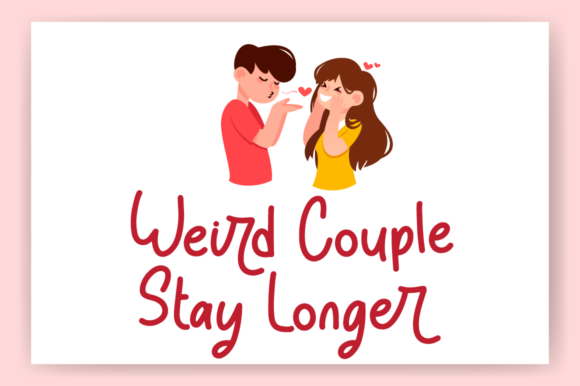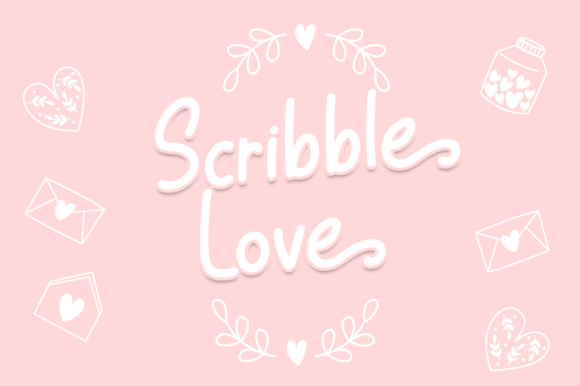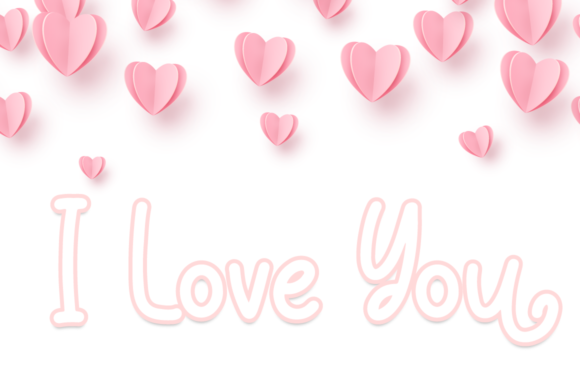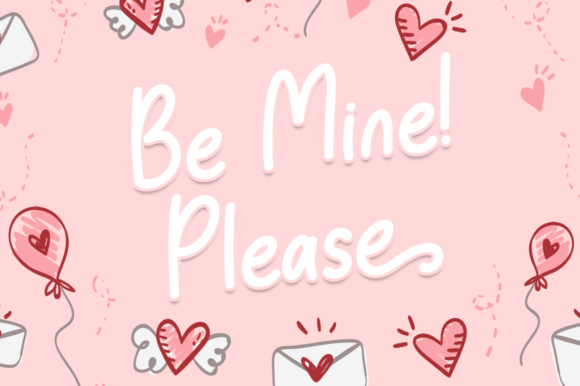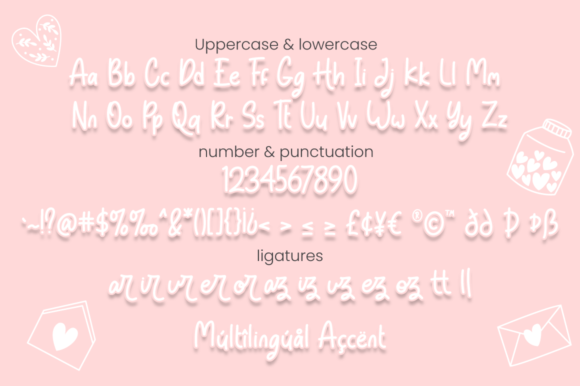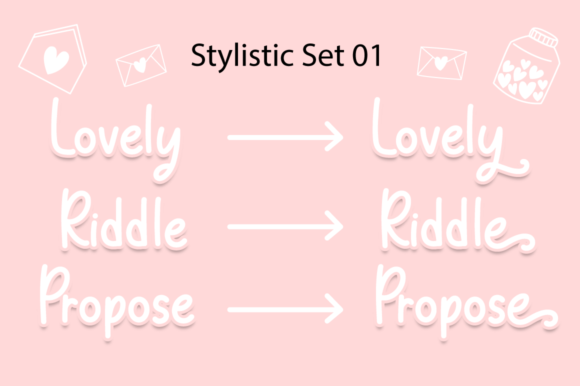
Aberana Font: The Sweet and Delicate Handwritten Font for Romantic Designs
Are you a designer or crafter looking for a font that can add a touch of romance and elegance to your designs? Look no further than the Aberana Font! This sweet and delicate handwritten font is perfect for creating beautiful wedding invitations, cards, and other designs that require a personal and loving touch.
What is Aberana Font?
Aberana is a modern handwritten font that is characterized by its dainty and joyful feel. It’s a font that exudes romance and sophistication, making it ideal for designs that require a touch of elegance. The font is designed to be highly legible and versatile, making it perfect for a wide range of design applications.
Key Features of Aberana Font
- Sweet and delicate: Aberana Font is a sweet and delicate font that is perfect for creating romantic and elegant designs.
- Handwritten feel: The font has a handwritten feel that gives it a personal and loving touch.
- Dainty and joyful: The font is characterized by its dainty and joyful feel, making it perfect for designs that require a touch of whimsy and playfulness.
- Highly legible: The font is designed to be highly legible, making it perfect for designs that require a clear and easy-to-read text.
- Versatile: The font is versatile and can be used for a wide range of design applications, from wedding invitations to cards and other designs.
Why Use Aberana Font?
There are many reasons why you should consider using Aberana Font for your designs. Here are a few:
- Add a touch of romance: Aberana Font is perfect for designs that require a touch of romance and elegance. It’s ideal for wedding invitations, cards, and other designs that require a personal and loving touch.
- Stand out from the crowd: The font’s unique and delicate feel makes it stand out from the crowd. It’s a great way to add some personality to your designs and make them more memorable.
Design Ideas Using Aberana Font
Aberana Font is a versatile font that can be used for a wide range of design applications. Here are a few ideas to get you started:
- Wedding invitations: Aberana Font is perfect for creating beautiful wedding invitations that are both elegant and romantic.
- Cards: The font is ideal for creating cards for special occasions, such as birthdays, anniversaries, and holidays.
- Stationery: Aberana Font can be used to create beautiful stationery, including letterheads, notebooks, and journals.
- Digital designs: The font can be used for digital designs, including social media graphics, blog posts, and email newsletters.
In conclusion, Aberana Font is a sweet and delicate handwritten font that is perfect for creating romantic and elegant designs. Its dainty and joyful feel makes it ideal for wedding invitations, cards, and other designs that require a personal and loving touch. With its high legibility and versatility, Aberana Font is a great addition to any designer’s toolkit.